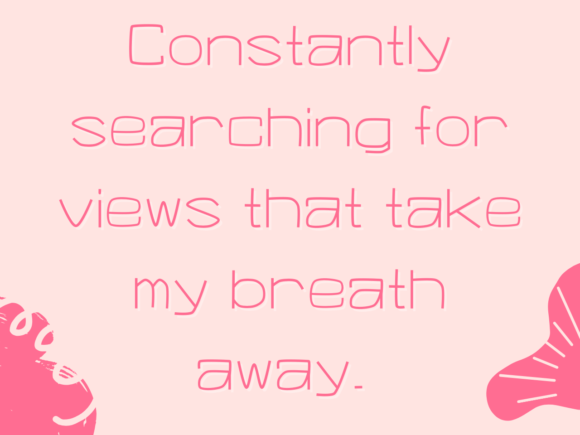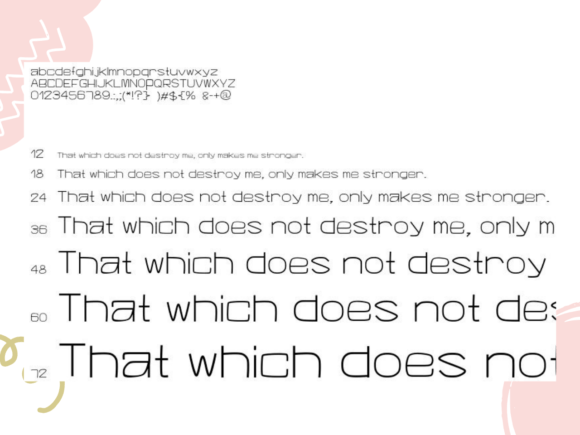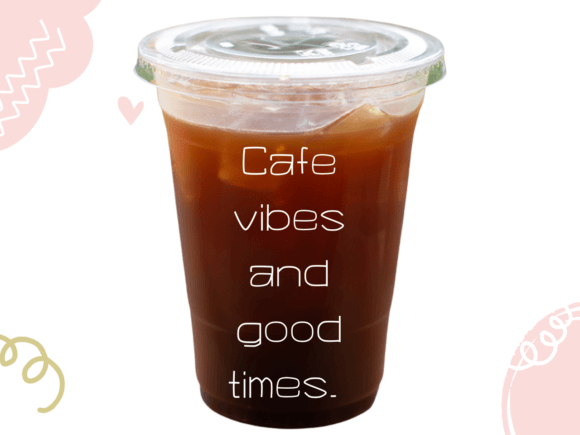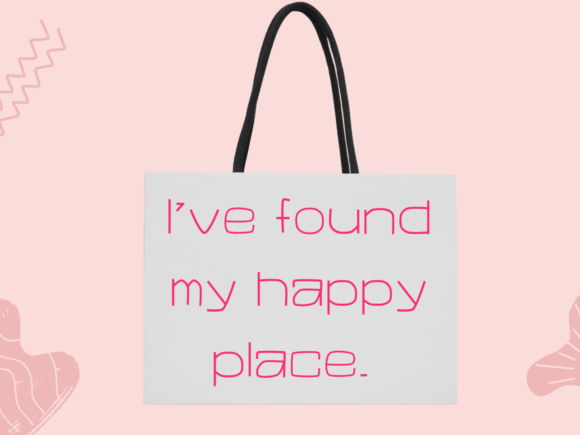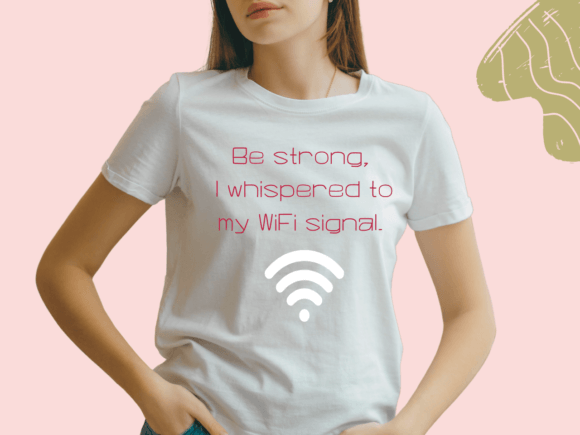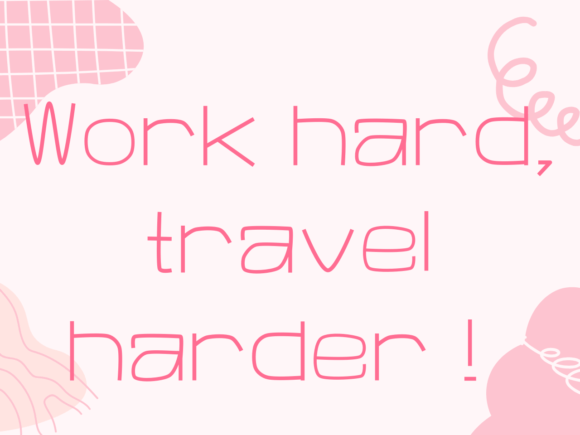
Introduction to Ricker Font
Have you ever stared at a blank page, waiting for that perfect idea to strike? It’s a moment every designer dreads and craves at the same time. But what if that spark was just a click away? With the right design resource, even the most daunting creative project can become a masterpiece.
That’s where the Ricker Font comes in – a timeless sans serif font that will breathe life into your designs. Its unique and beautiful touch makes every letter a work of art, elevating your design to new heights. Whether you’re crafting an eye-catching logo, branding a new identity, or adding a touch of elegance to a quote, the Ricker Font is the perfect companion for your creative journey.
Key Features of Ricker Font
- High-quality font design for creative projects, available as a free download.
- Available in 5 different font styles, each with its unique characteristics and flair.
- Perfect for use in various design projects, including logos, graphics, and digital artwork.
Honest Review: Ricker Font
I recently came across the Ricker Font, a design resource that has been making waves in the creative community. As a designer, I was excited to dive in and see what it had to offer.
What works well: ✨ The Ricker Font is available for free download, which is a major plus in my book. It’s always great to have access to high-quality fonts without breaking the bank. I also appreciate the transparent background, which makes it easy to use in a variety of design projects.
Some of the key features include:
- Modern sans-serif design
- Perfect for headlines and titles
- Works well in digital and print applications
⚠️ One of the limitations of the Ricker Font is that it may not be suitable for all types of creative projects. The modern sans-serif design may not be the best fit for more traditional or vintage-style designs. Additionally, the font files are available for free, which may raise some concerns about licensing and usage rights.
Overall, I’m impressed with the Ricker Font. It’s a great addition to any designer’s toolkit, and I appreciate the transparency and flexibility of the font files. With a little creativity, I think the Ricker Font could be a game-changer for my next project.
Ricker Font
The Ricker Font is a versatile design resource that can elevate your creative project. With its high-quality design and transparent background, this font is perfect for any project that requires a touch of sophistication.
Tips for Getting the Most Out of Ricker Font
To get the most out of the Ricker Font, consider the following tips:
- Use the font in combination with other high-quality design elements to create a cohesive look.
- Experiment with different font sizes and styles to add visual interest to your project.
The Ricker Font is perfect for a variety of creative projects, including:
- Business cards and letterheads.
- Brochures and flyers.
- Social media graphics and